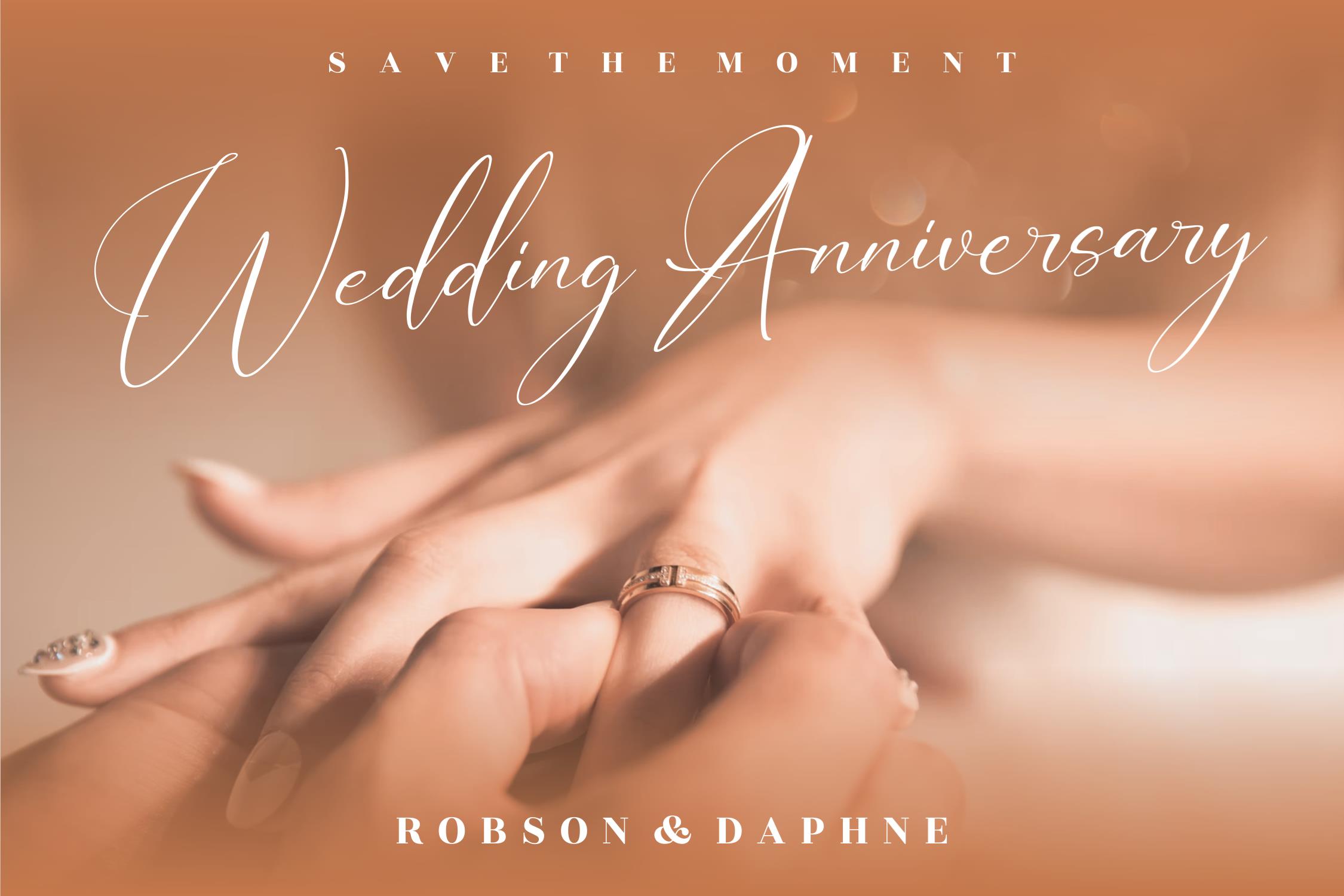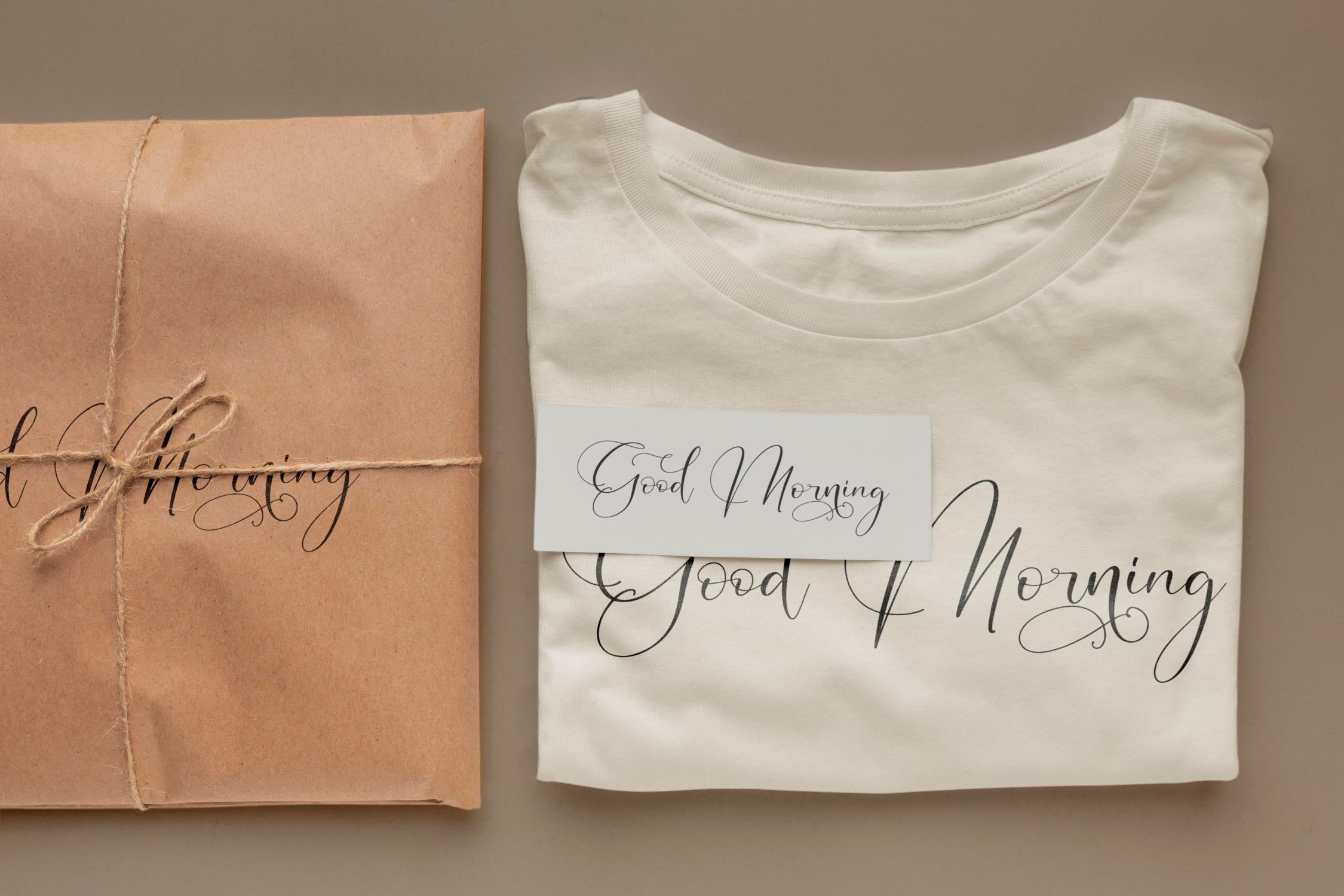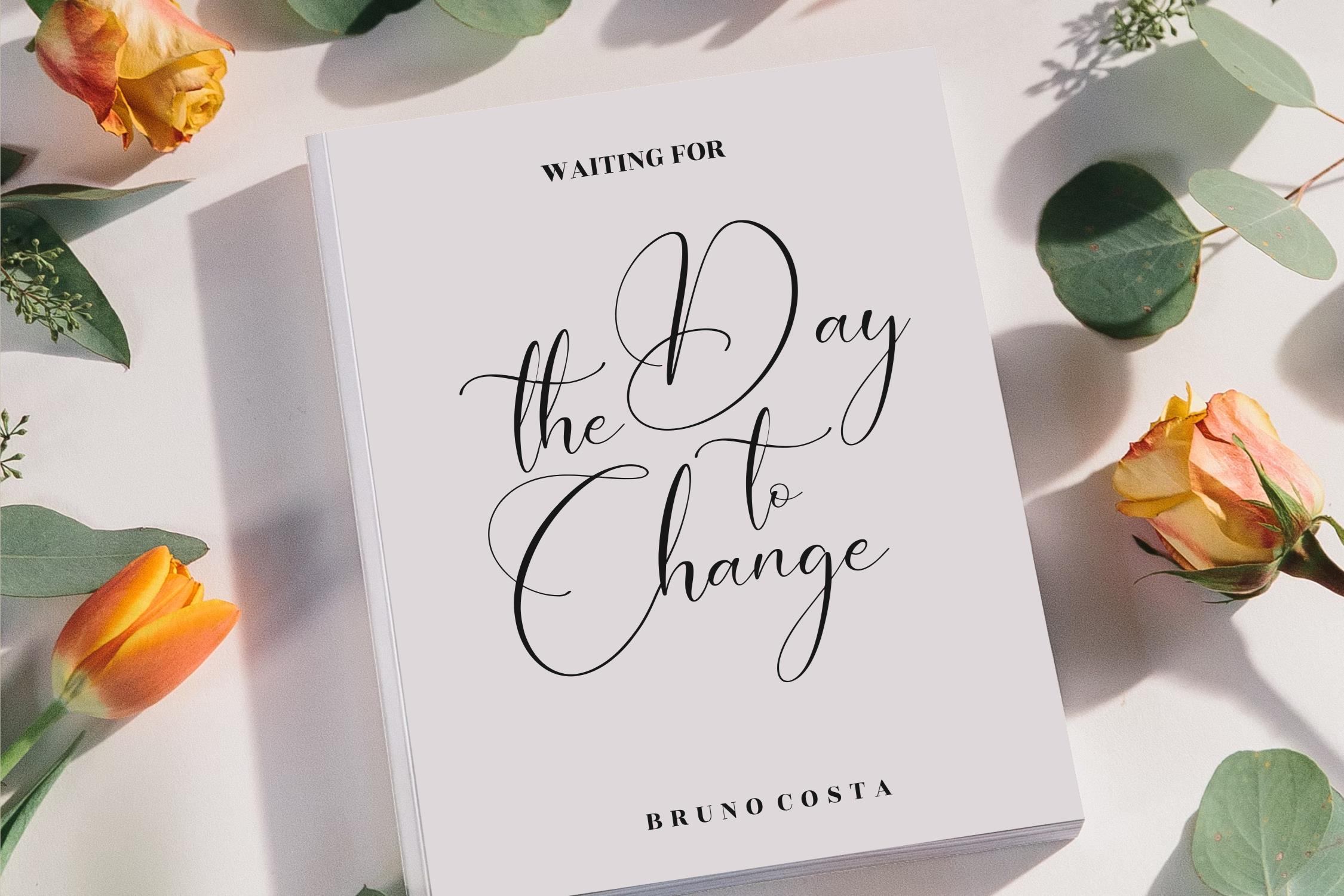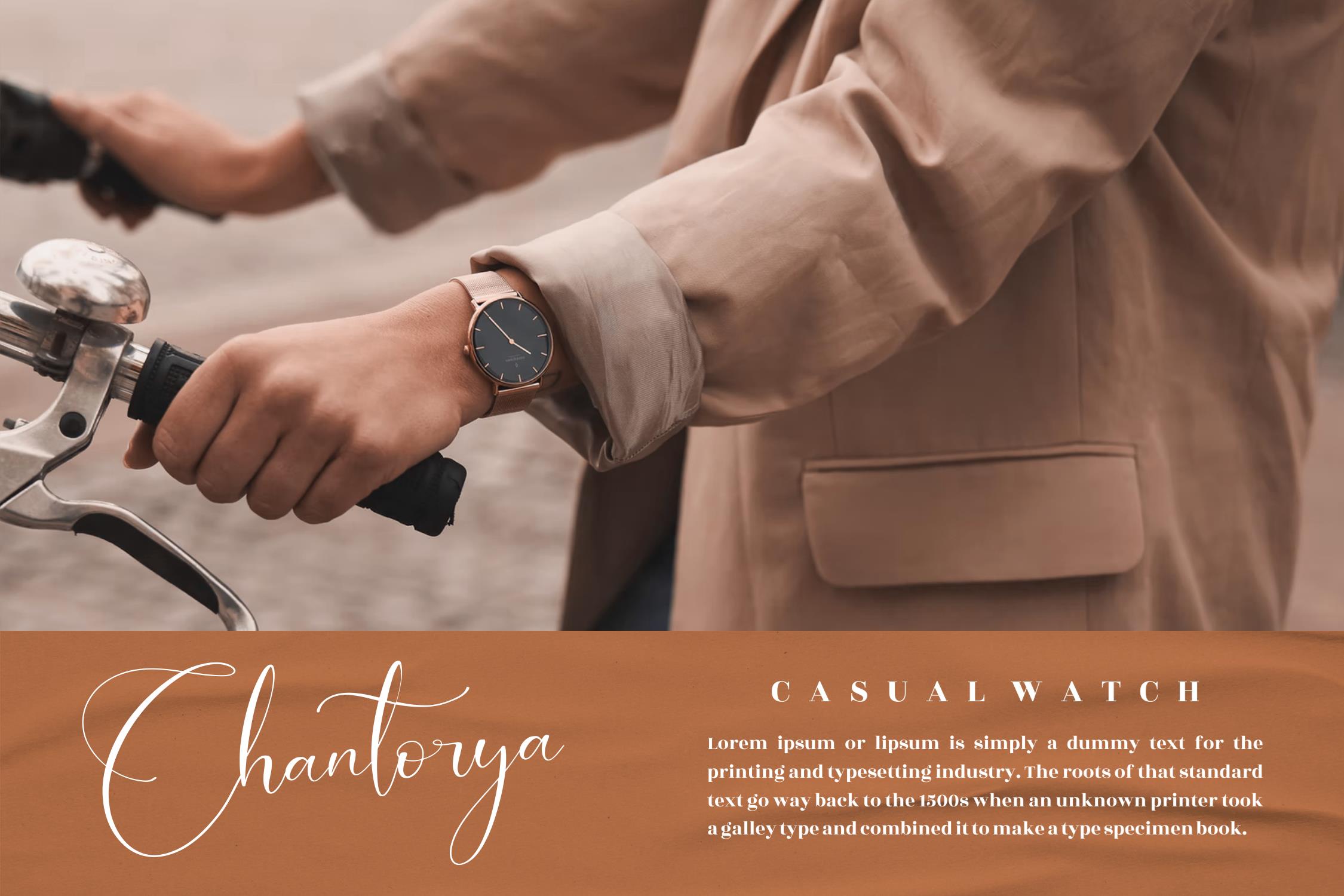
Landerful Signature Script Font
This is a beautiful script font, suitable for any projects such as: logos, branding projects, homeware designs, product packaging, mugs, quotes, posters, shopping bags, t-shirts, book covers, name card, invitation cards, greeting cards, label, photography, watermark, special events, and all your other lovely projects that need a beautiful script taste.